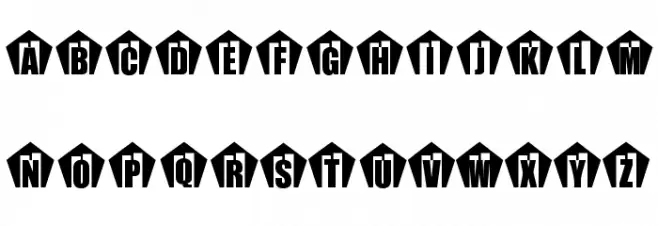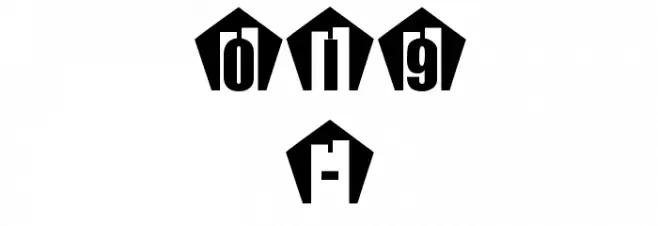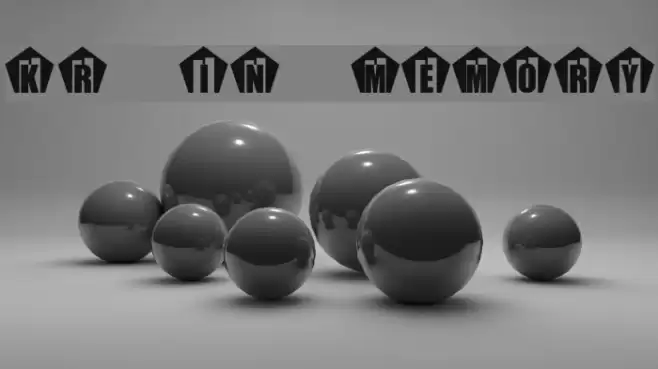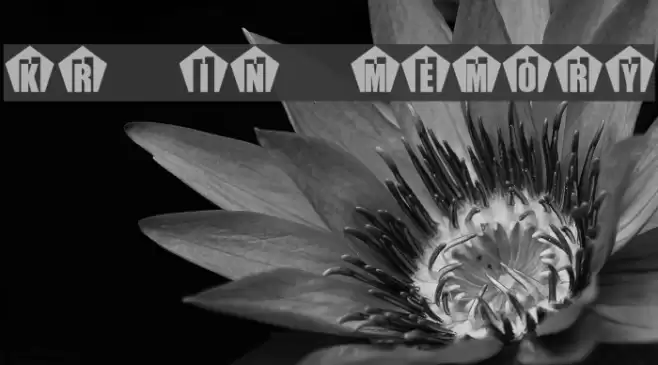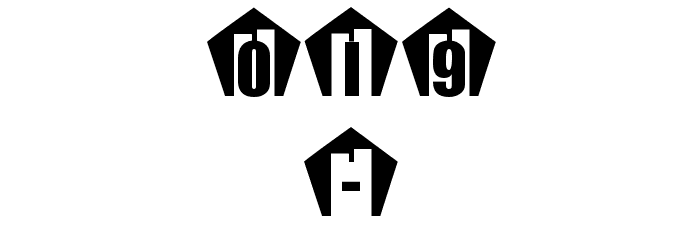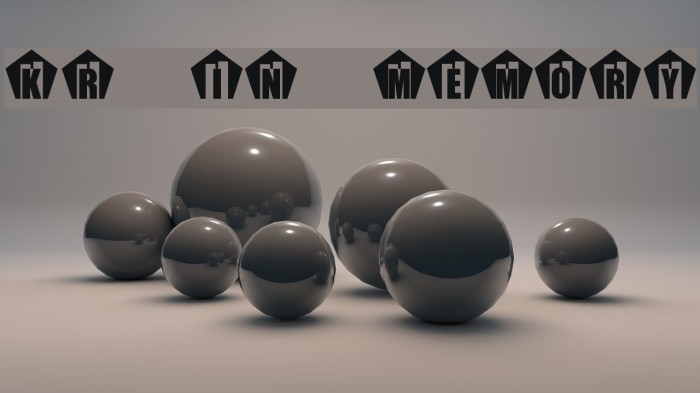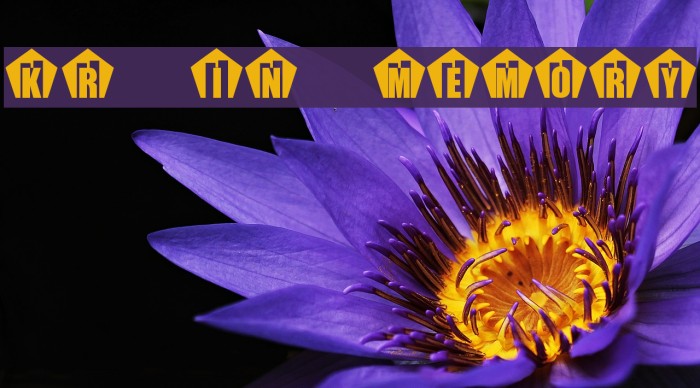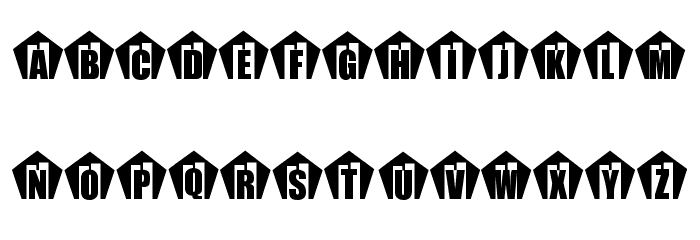
KR In Memory
This font features a bold and geometric design, characterized by its unique pentagonal shapes that form each letter and number. The uppercase letters are distinct, with sharp angles and a solid, block-like appearance. The numbers follow a similar style, maintaining the geometric consistency. The font lacks lowercase letters and special characters, focusing on a strong, impactful visual presence. Its design is reminiscent of architectural structures, making it stand out with its modern and innovative approach.
A bold, geometric font with pentagonal shapes and a modern style.
- Proposed Projects: Ideal for branding, logos, and headlines that require a strong and modern aesthetic.